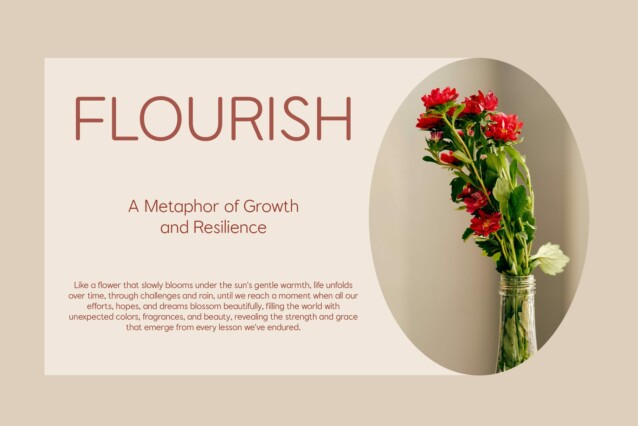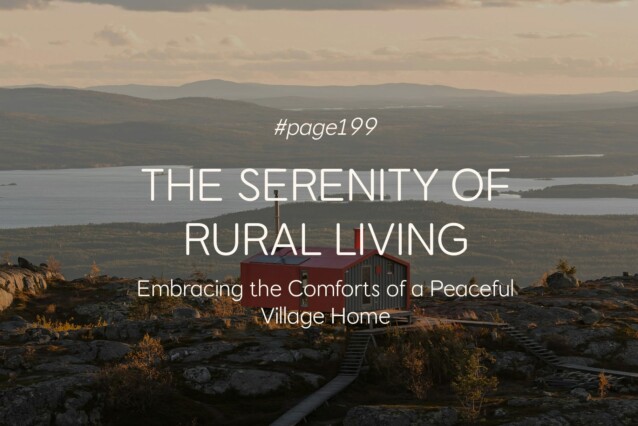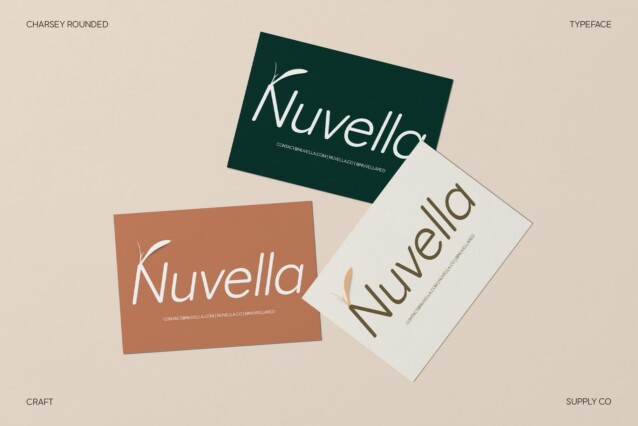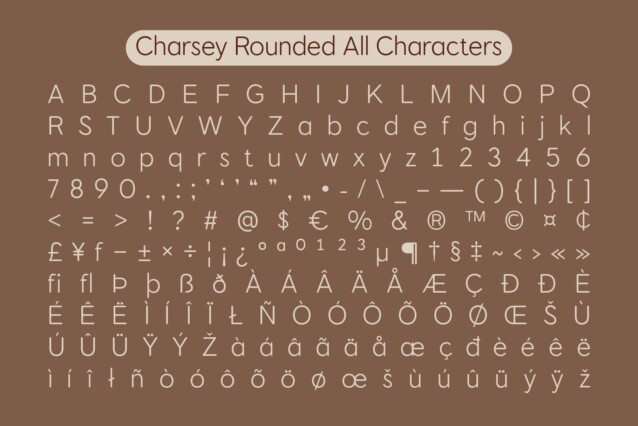
Charsey Rounded Font
Charsey Rounded Font is a modern sans-serif font that combines the clean, precise structure of geometric shapes with the warmth of rounded edges. This harmonious blend offers a perfect balance between order and approachability, making it a versatile choice for a wide range of design applications. The geometric foundation ensures a sense of clarity and modernity, while the soft, rounded curves add a friendly and inviting touch to the overall appearance.